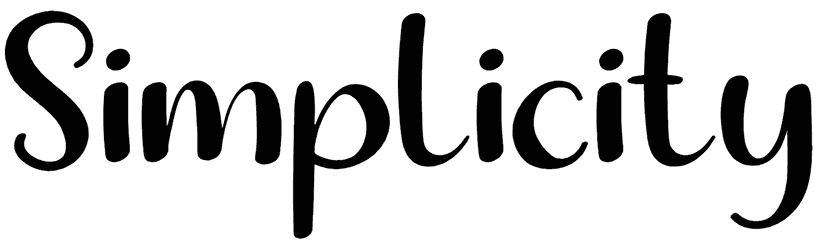
Simplicity Font
Using the Simplicity, script font will let you produce something that is both simple and beautiful, and it will be able to stand out in a variety of settings like stories, books, television programs, and magazines. Check out our collection, which is continually being expanded, if you want to get first dibs on all of the free things that you might ever require.
Simplicity is a sweet and friendly handwritten font. Its natural and unique style makes it incredibly fitting to a large pool of designs. The only limit is your imagination!